Choosing the right font can make all the difference in design, giving your projects personality, style, and visual appeal. Whether you’re working on branding, posters, social media graphics, or editorial layouts, modern and expressive typefaces can elevate your work. This collection features a variety of stylish fonts — from elegant and refined to bold and contemporary — perfect for designers seeking versatile typography options.
Aulisse Font
Aulisse is a high-contrast serif font with fluid, ornamental flourishes. Featuring dramatic ligatures and swan-like curves, it’s perfect for luxury wedding invitations, high-fashion logos, and premium cosmetic packaging, adding elegance and sophistication to any design.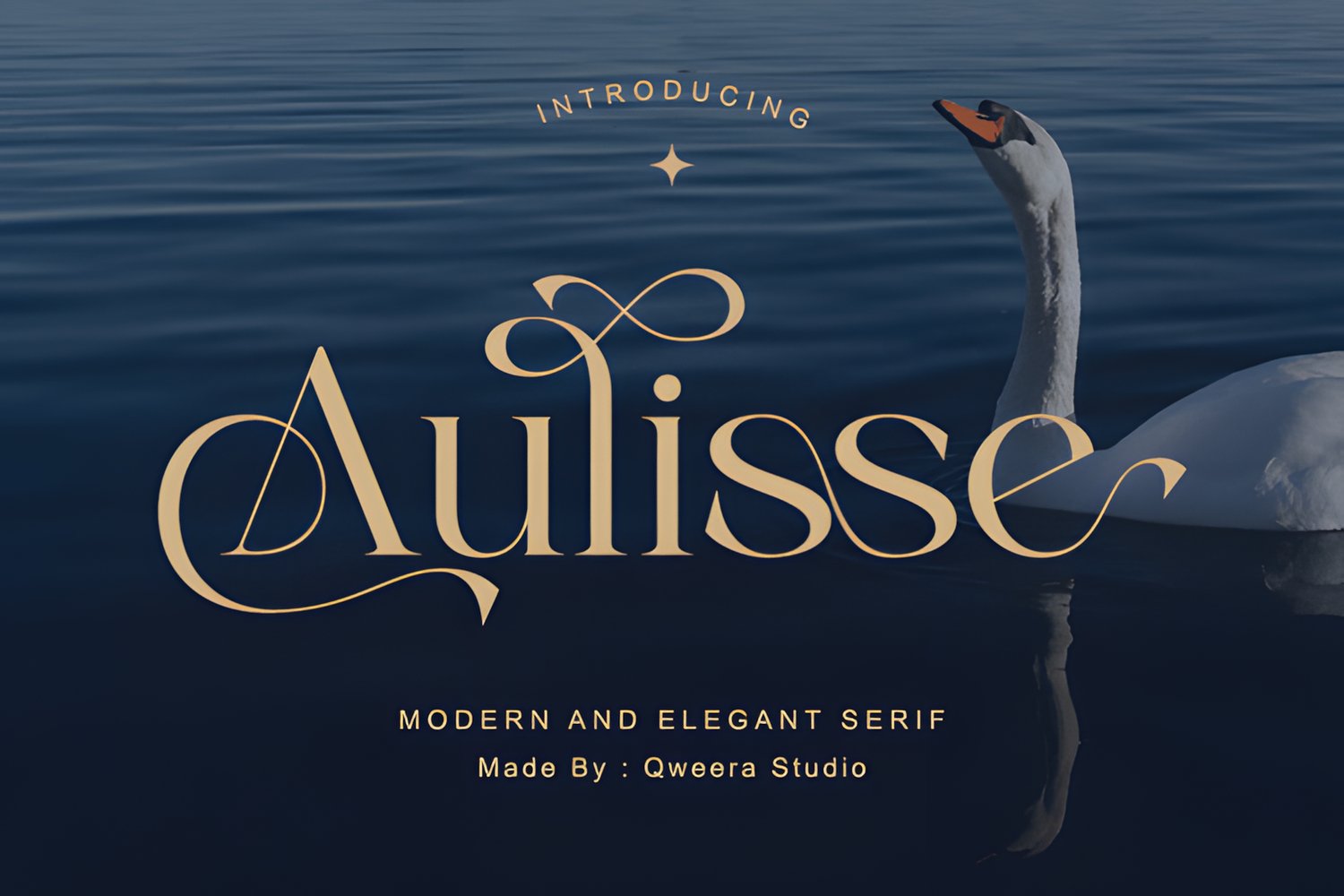
Chunk Font
Chunk is a bold, chunky display font built for maximum impact. Ideal for logos, posters, headlines, social media, and branding, it includes ligatures, symbols, numerals, and multilingual support, making your designs instantly eye-catching and distinctive.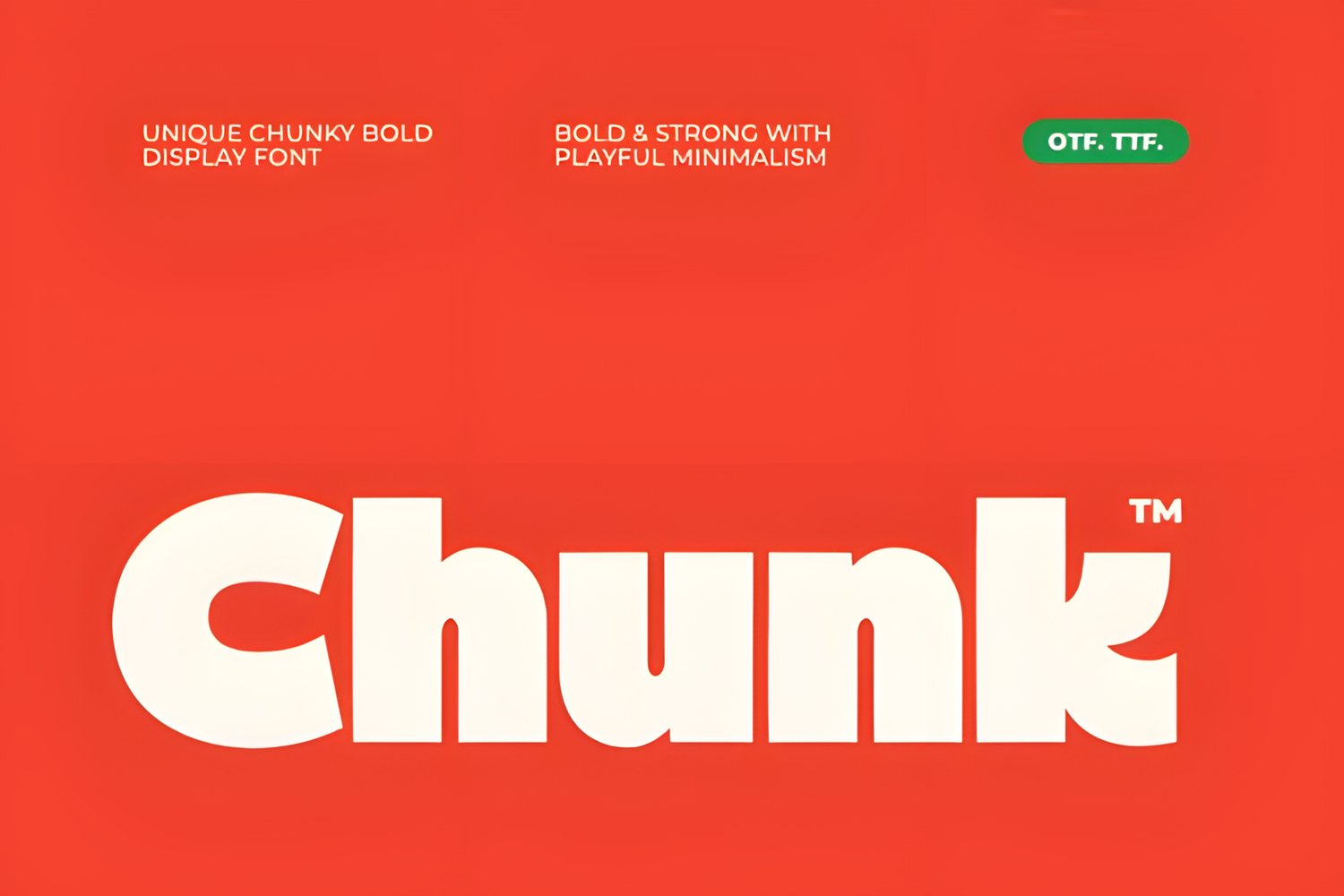
Thorn Tale Whisper Edition Font
Thorn Tale – Whisper Edition is a high-contrast serif font with sharp serifs, delicate curves, and expressive details. Perfect for editorial design, book covers, luxury branding, fashion projects, quotes, invitations, and cinematic typography, it brings elegance and poetic sophistication to any project.
Gorga Romantic Font
Gorga Romantic is a modern, clean sans serif font that balances geometric precision with elegant, flowing details. Bold and wide-proportioned, it features a distinctive calligraphic flourish on the uppercase “R,” making it perfect for logos, branding, editorial design, and sophisticated typographic projects.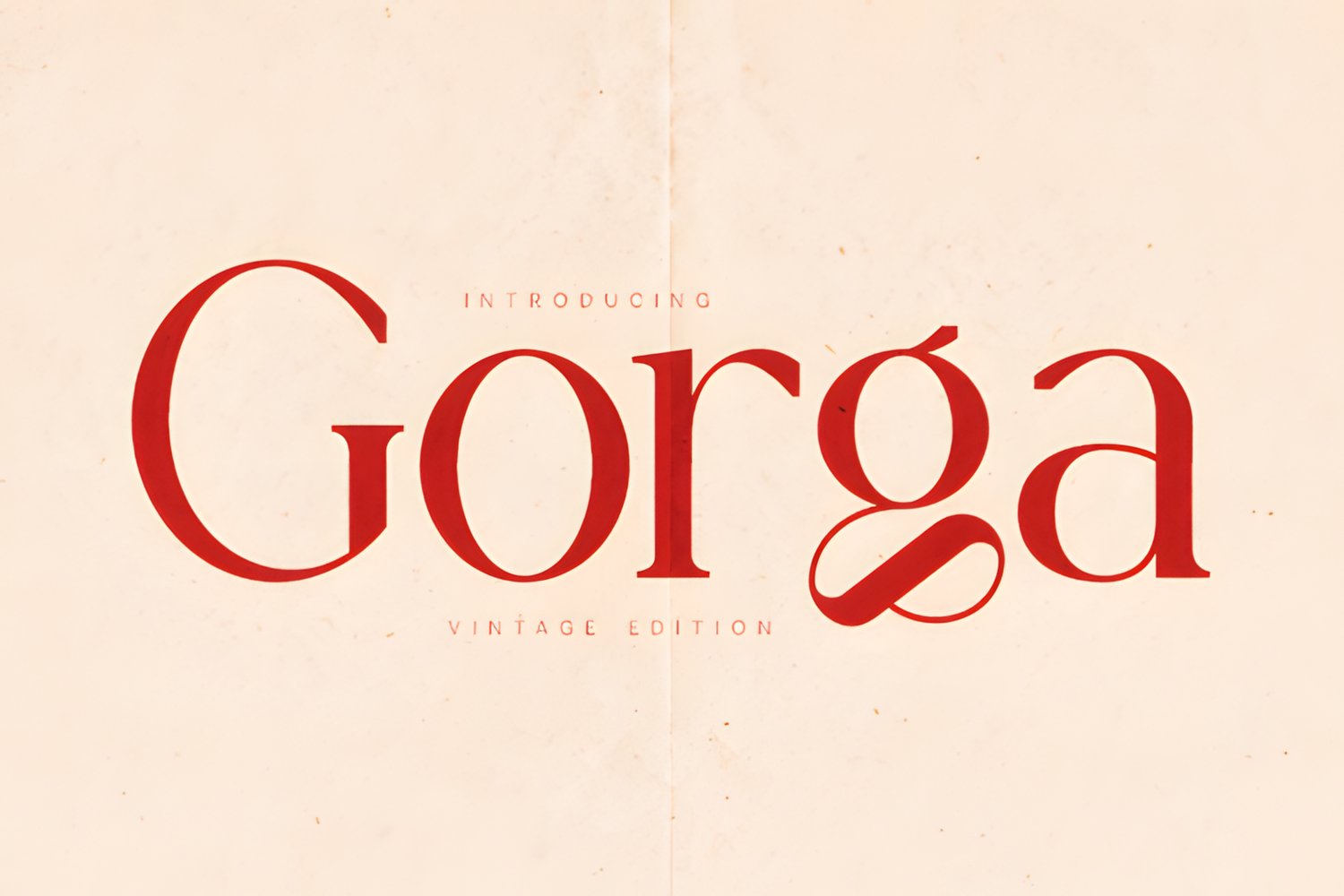
Pure Motif Font
PureMotif is an elegant cursive serif font with graceful curves and flowing letterforms. Perfect for logos, editorial layouts, invitations, packaging, quotes, fashion branding, and other premium projects, it brings refined, sophisticated typography to any design.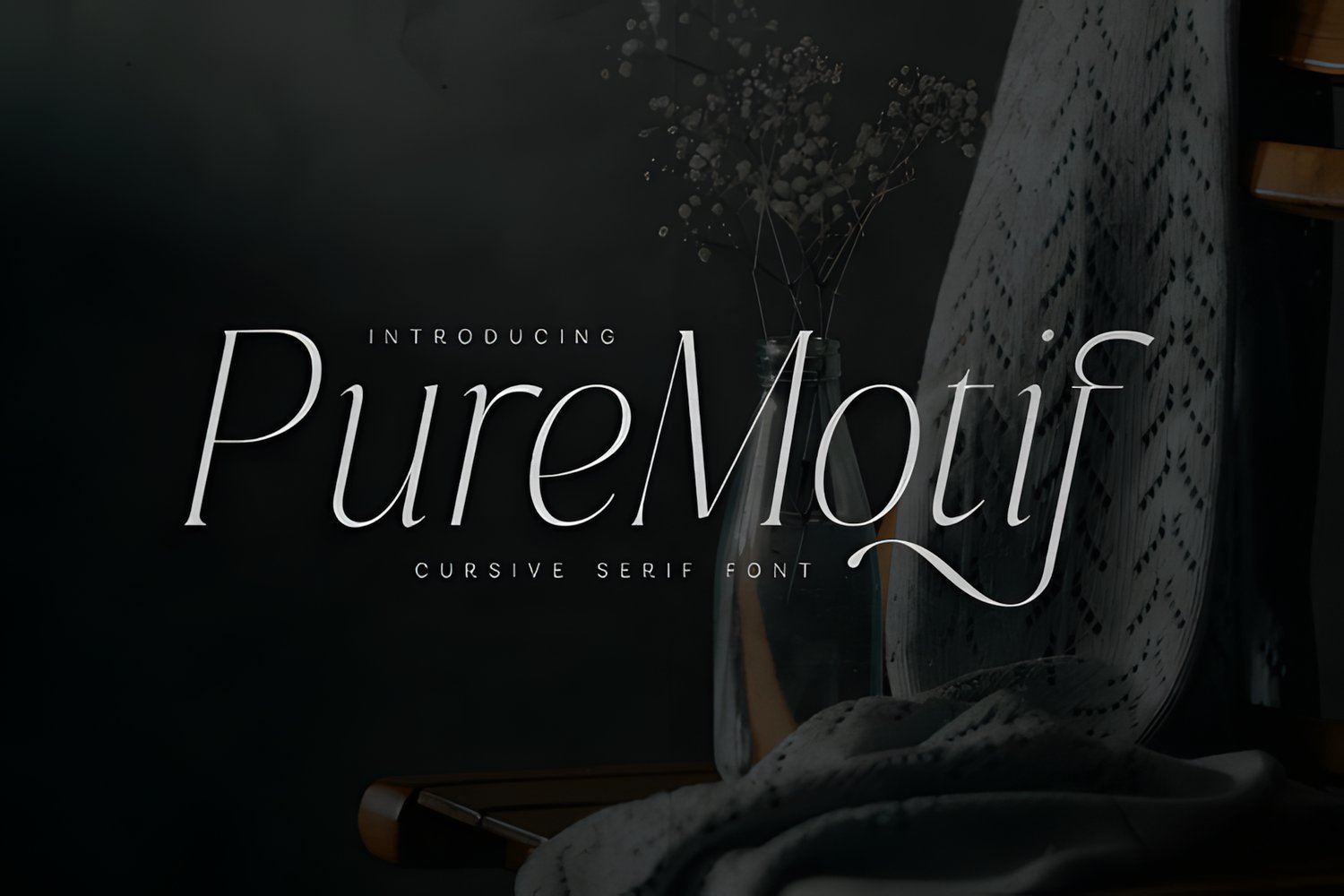
Makyes Font
Makyes is a modern, classy logo font that combines clean, refined forms with a luxurious aesthetic. Elegant and sophisticated, it’s perfect for high-end branding and stylish visual identities, helping designers create polished, exclusive, and memorable logos.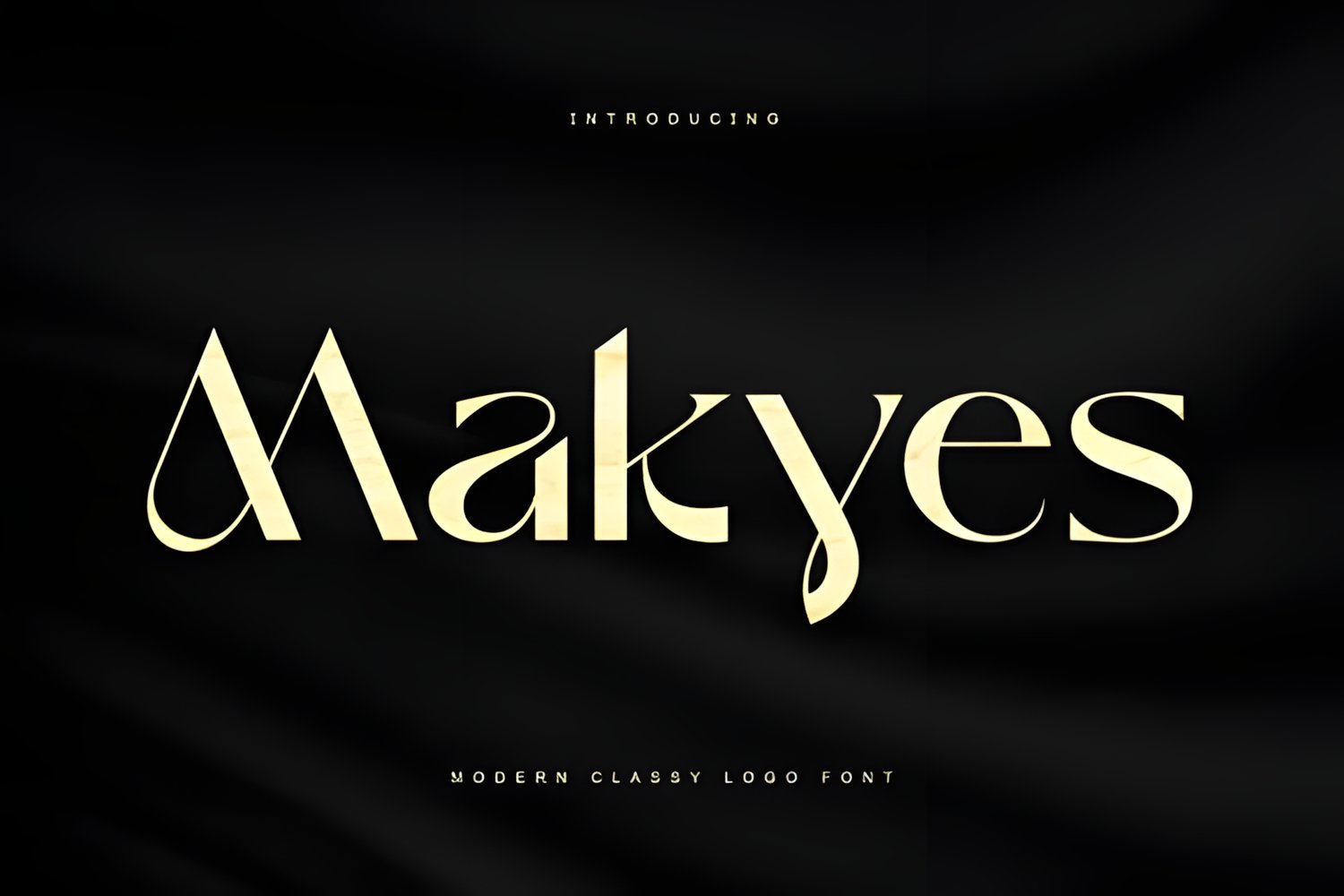
Amerta Font
Amerta is a modern, elegant serif font available in multiple weights, featuring stylish extras for added flair. Perfect for branding and logo design, it helps create classy, sophisticated, and unique visual identities.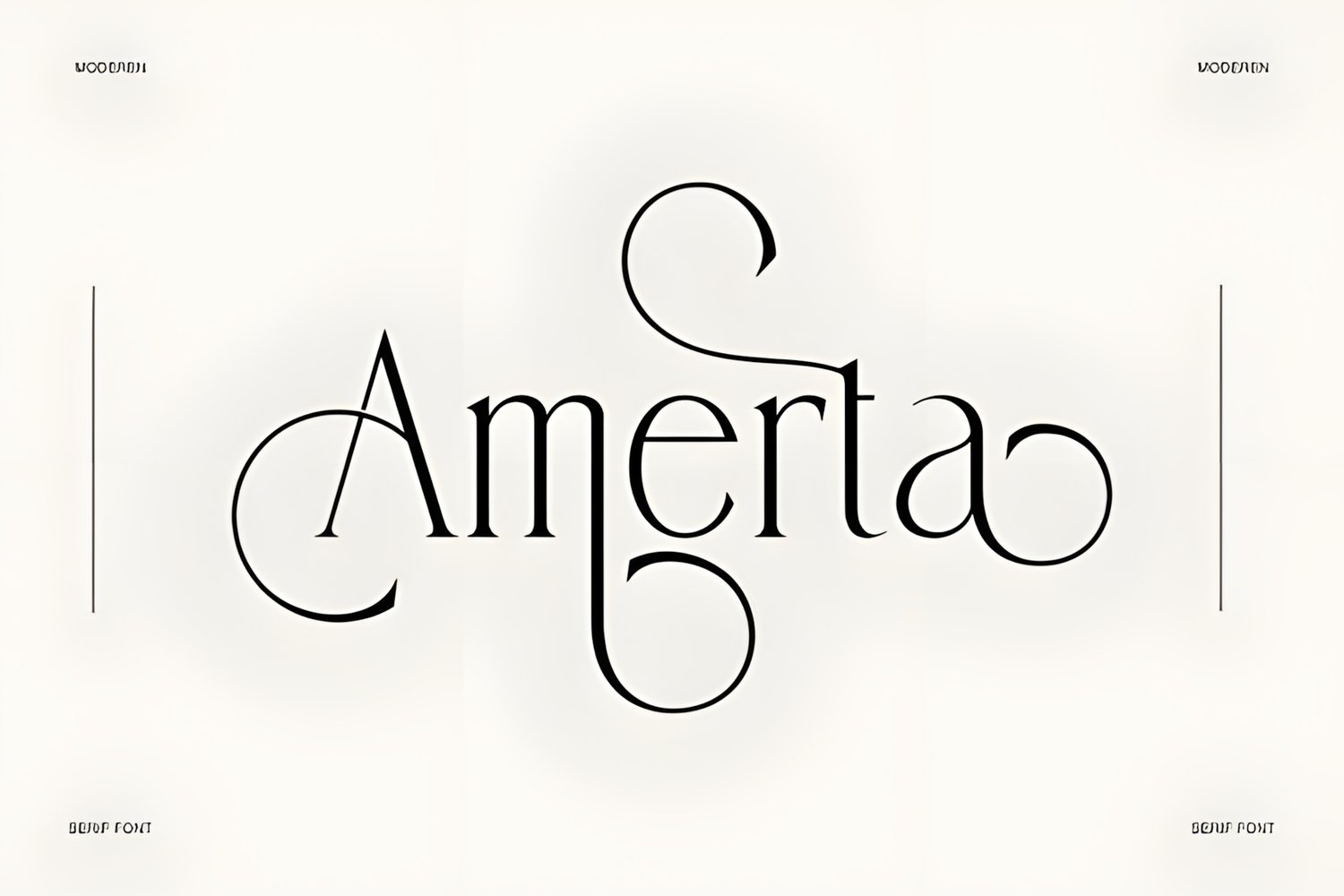
Kavo Font
Kavo is a minimalist, ultra-thin sans serif font that exudes modern elegance. Perfect for designers seeking refined, clean typography for logos, branding, editorial layouts, and sophisticated visual projects.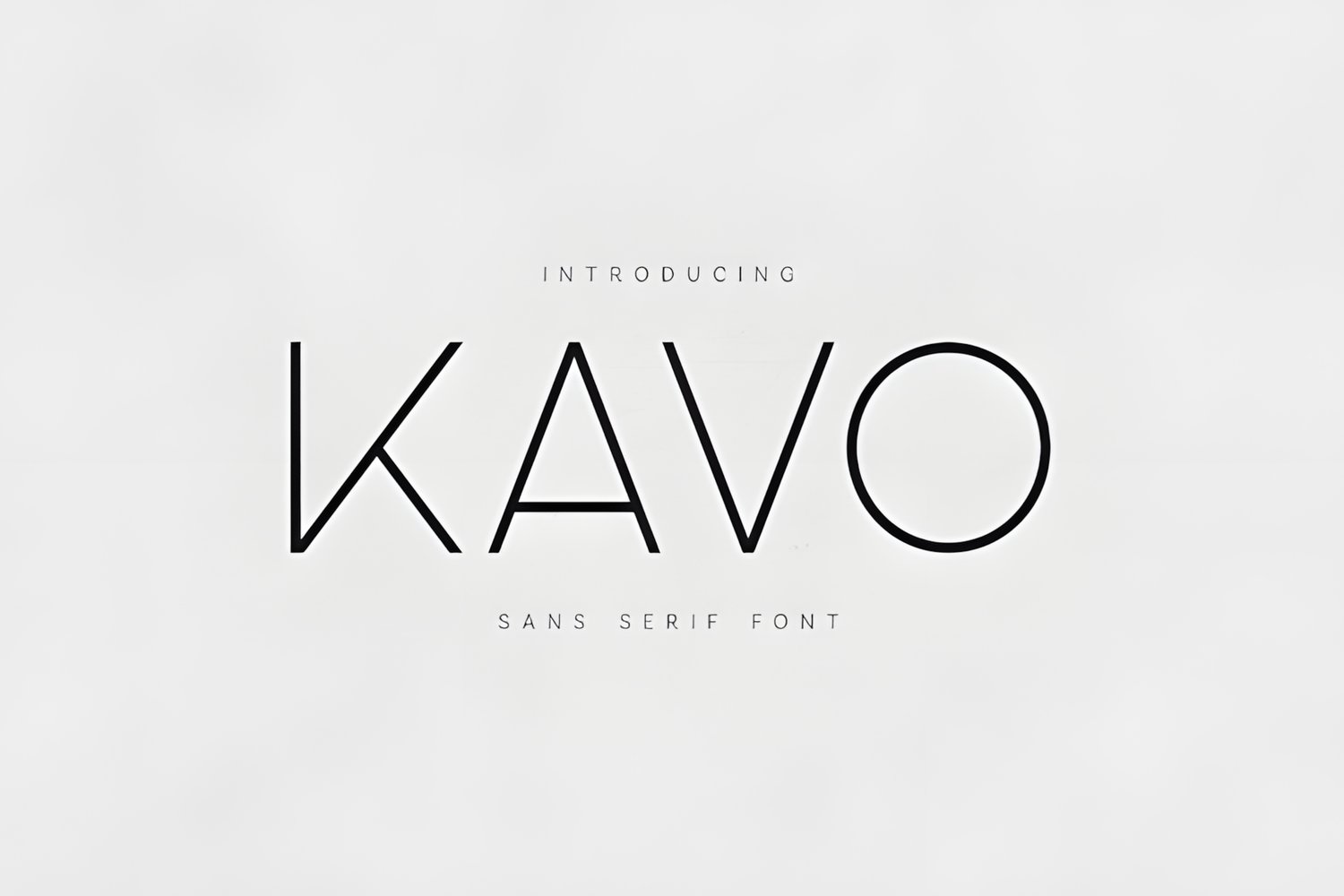
Gorga Font
Gorga Vintage Edition is a refined serif font inspired by classic book typography and timeless editorial design. With elegant letterforms, balanced contrast, and subtle traditional details, it brings a warm, authentic, and heritage-rich aesthetic to any project.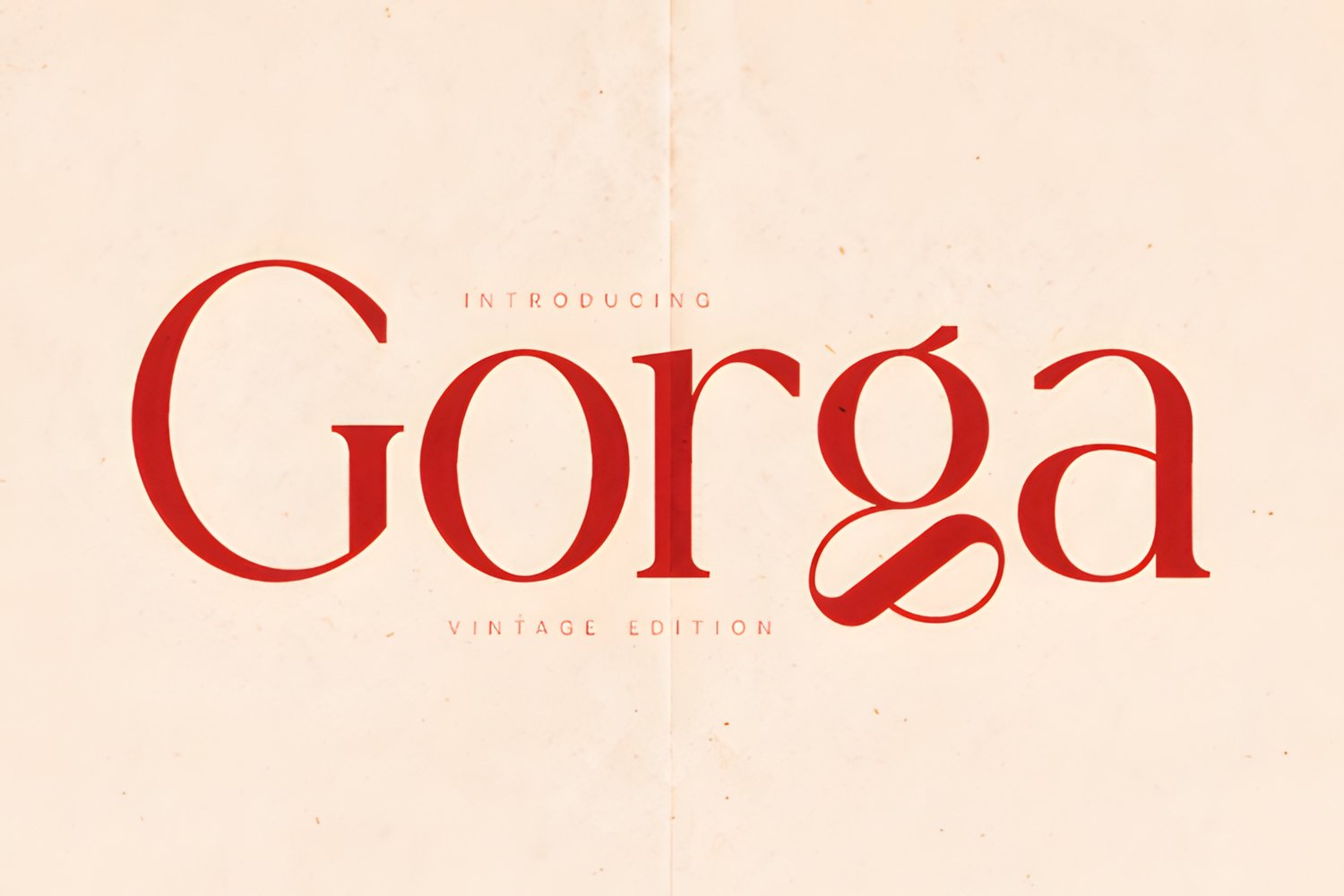
Youngboy Font
Youngboy is a vintage-inspired calligraphy font with a modern twist. Featuring beautifully detailed, flowing letterforms and classic decorative copper script style, it’s perfect for branding, packaging, invitations, signage, and any design that needs elegance and versatility.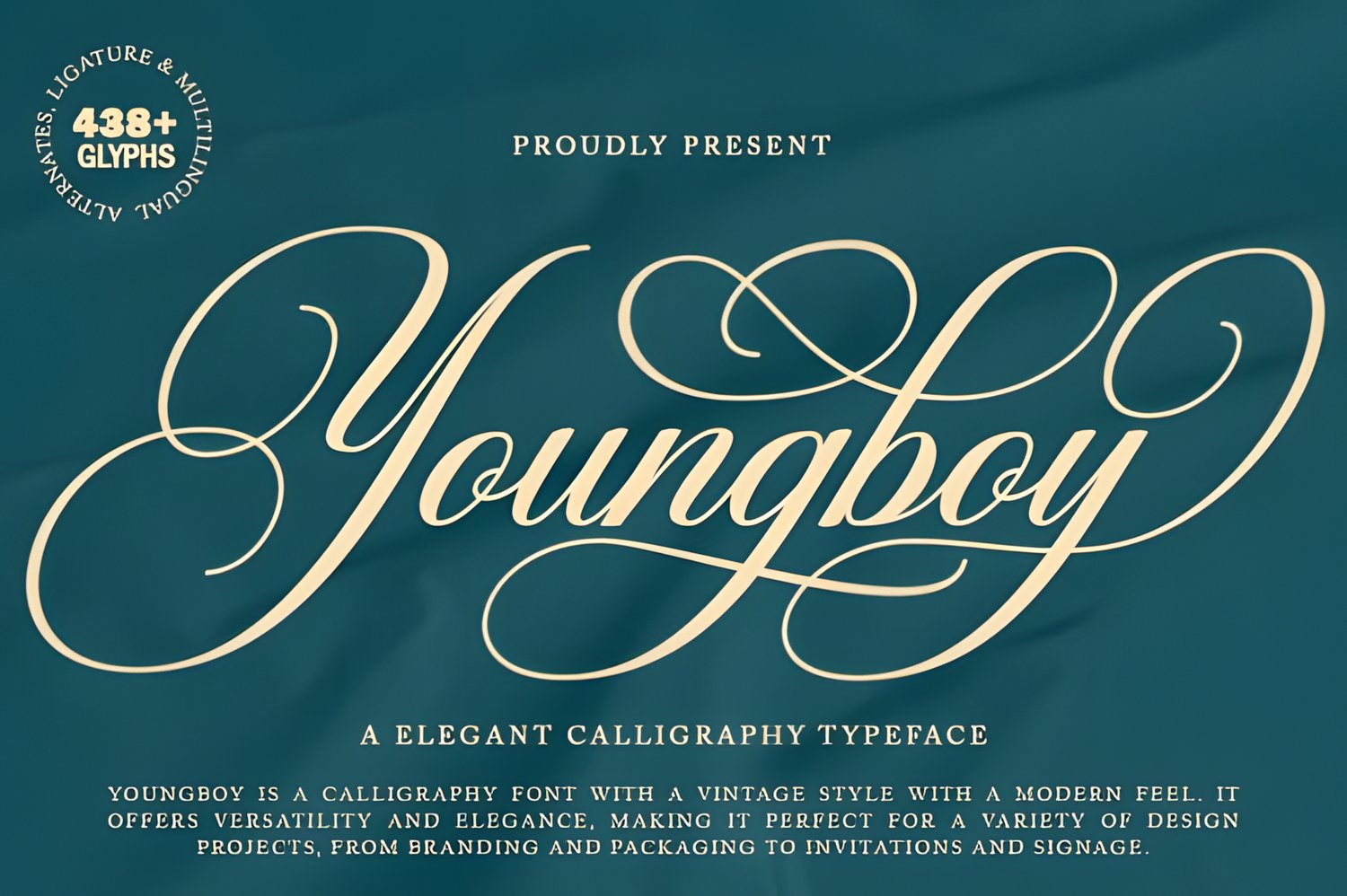